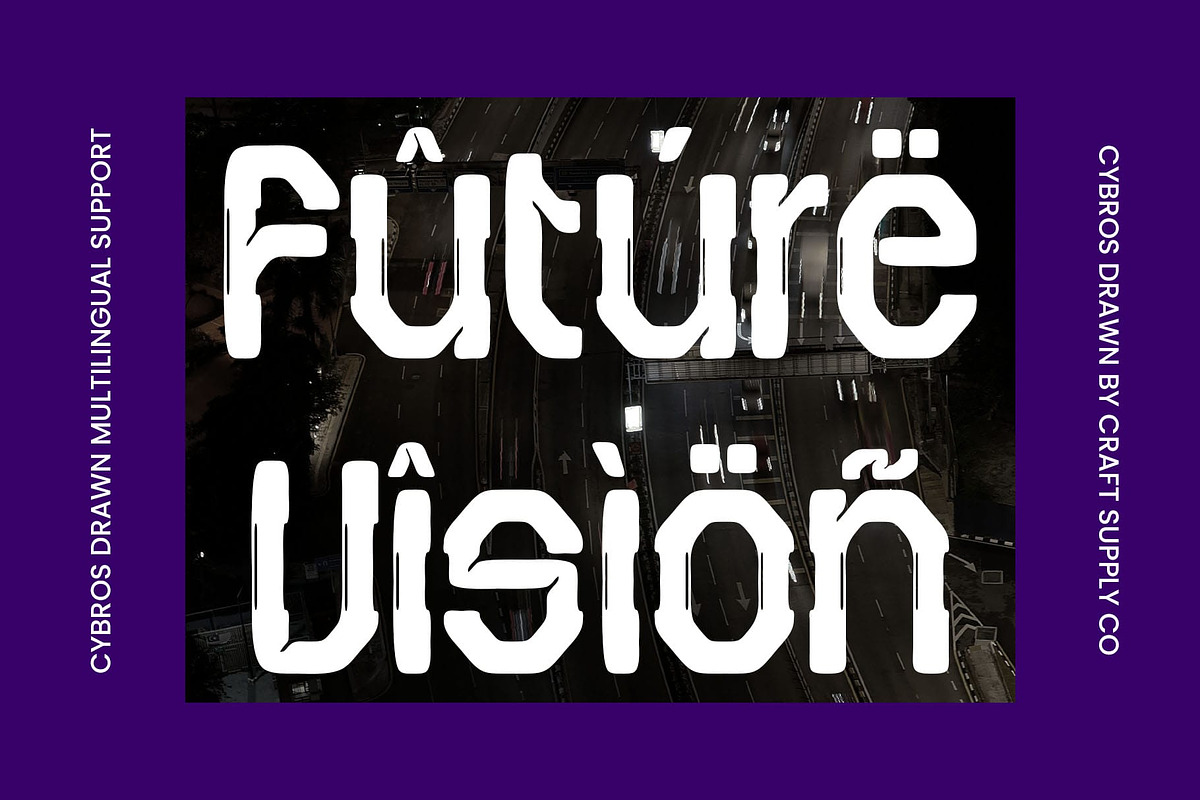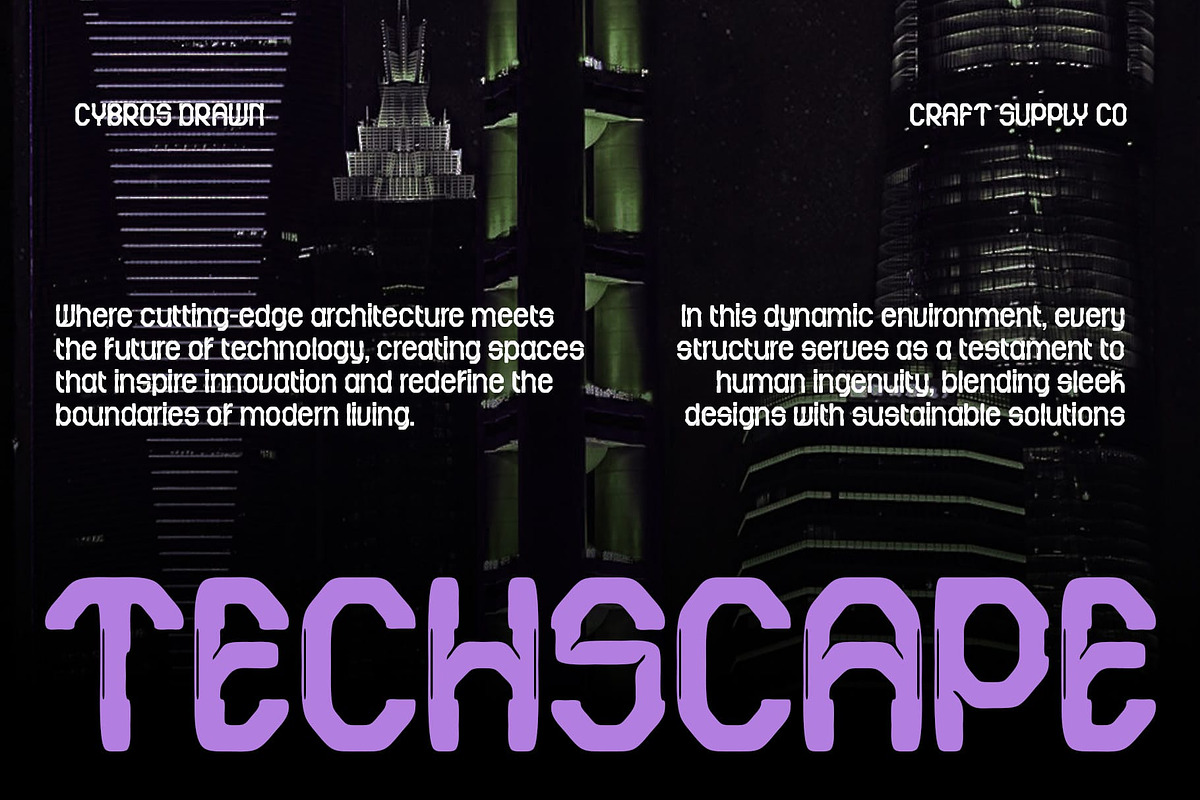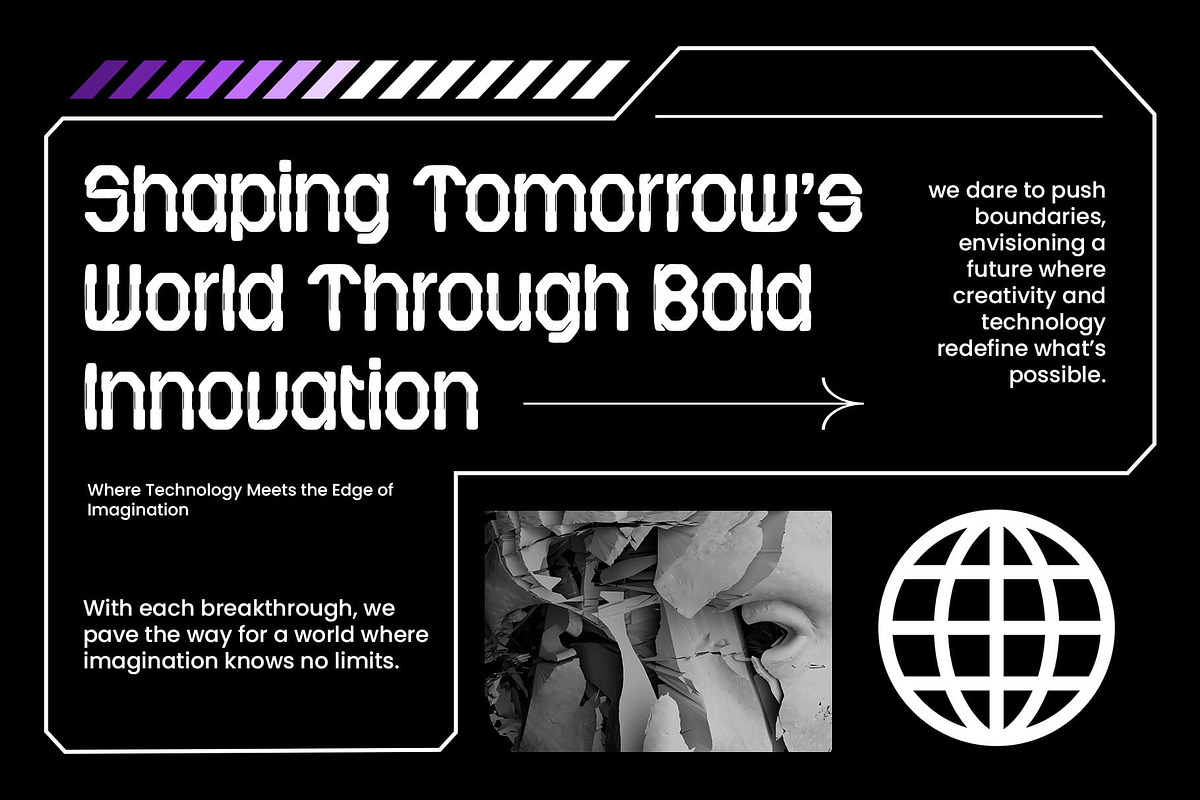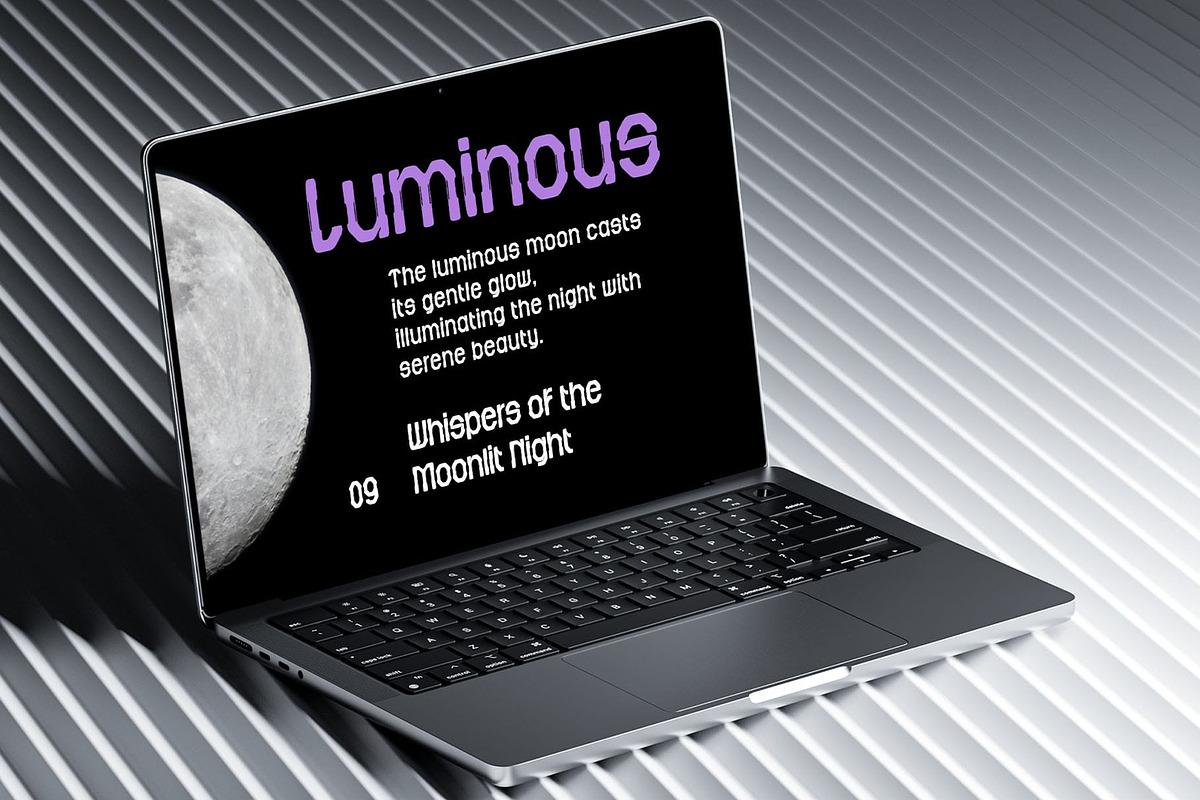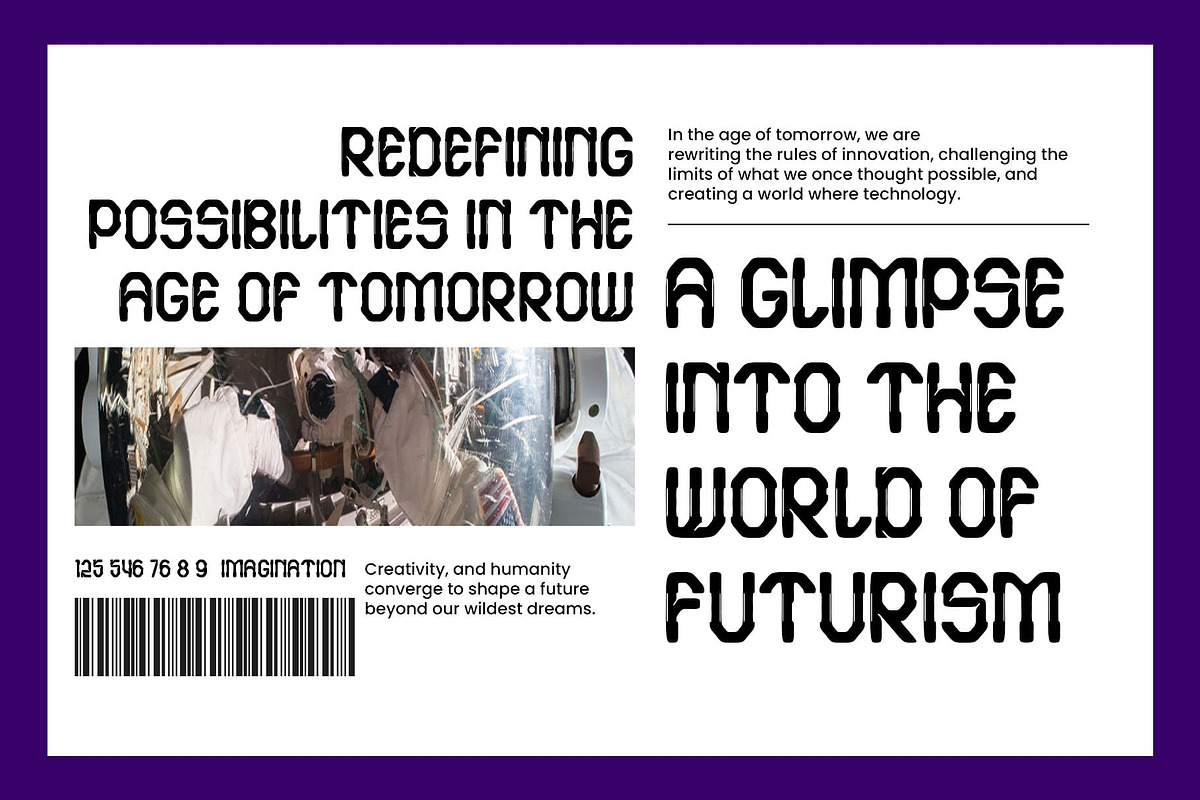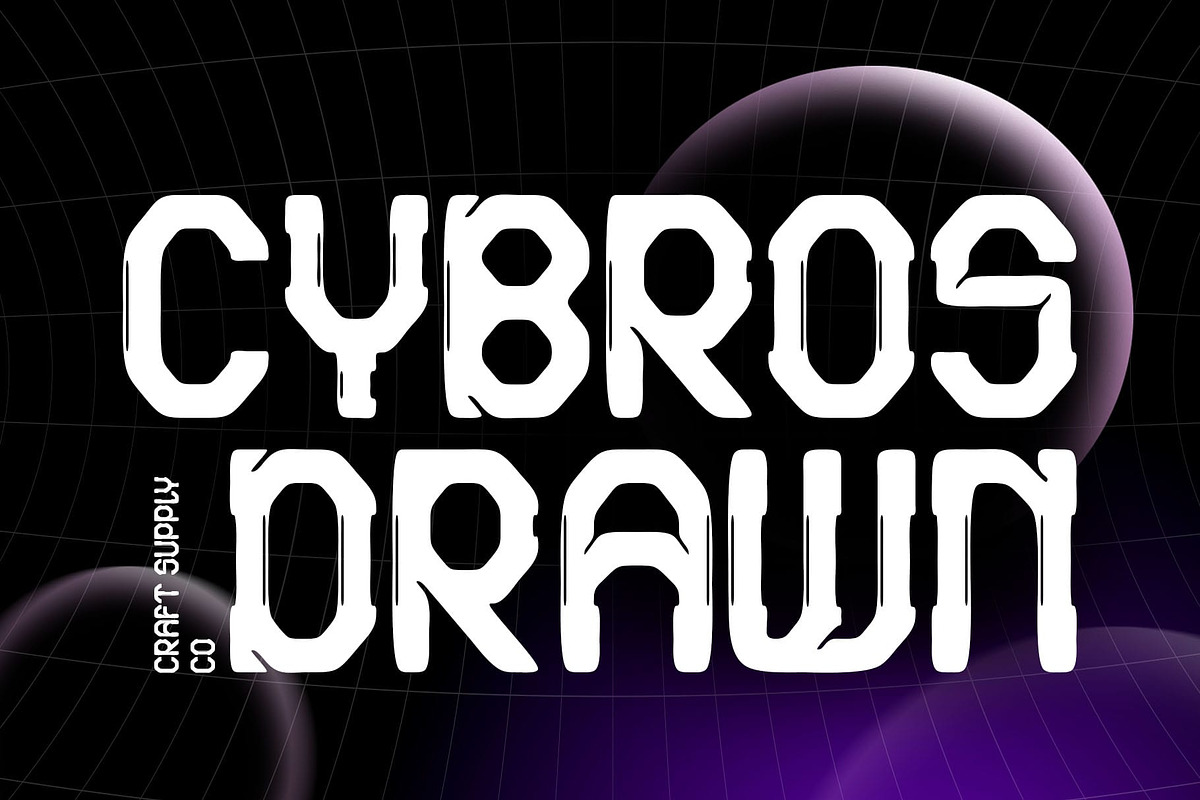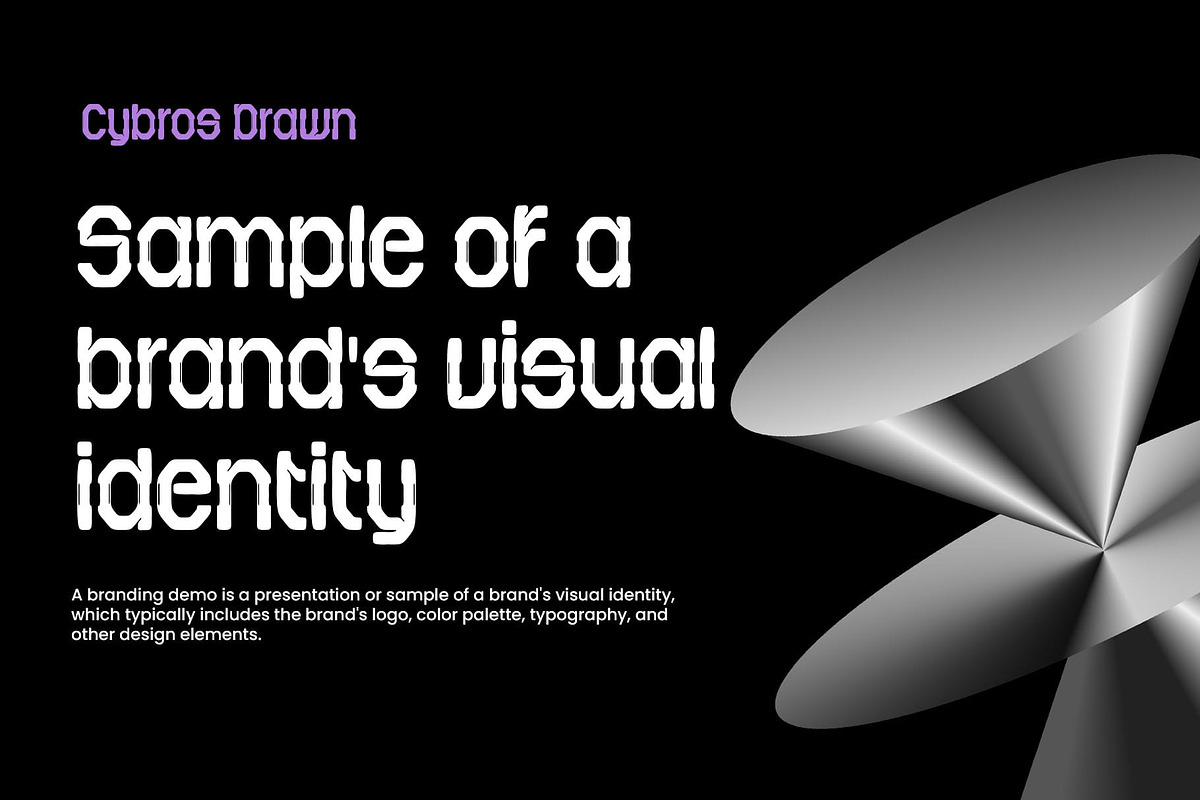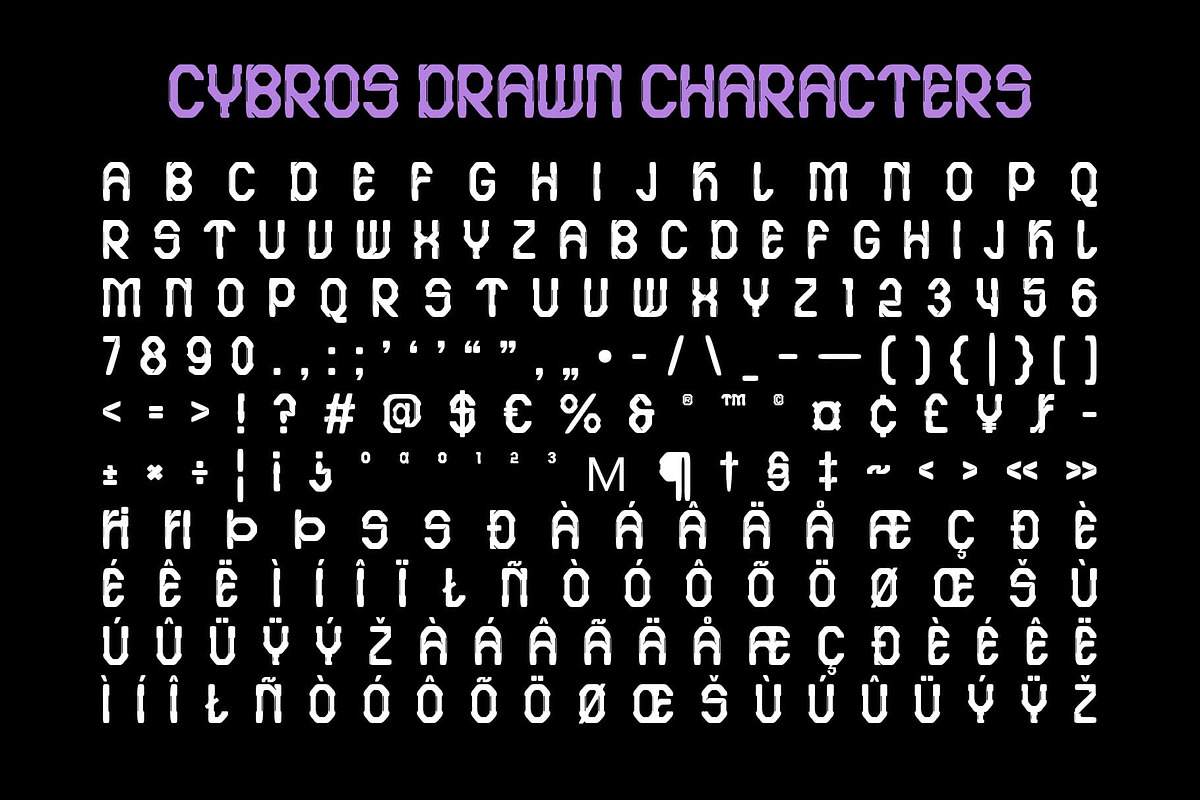
Cybros Drawn
Cybros Drawn – Futuristic Font with Handcrafted Detailing
Sleek, Modern Display Font with Futuristic Shapes Cybros Drawn is a modern display font that merges sleek, geometric, futuristic shapes with a unique hand-drawn effect. The sharp, cutting-edge letterforms evoke a high-tech, forward-thinking aesthetic, while the organic, handcrafted detailing adds an artistic touch that sets this font apart. This distinctive blend of precision and creativity creates a compelling visual language ideal for contemporary designs.
Combining Innovation with Artisanal Craftsmanship The clean, structured lines of the font deliver a professional and modern feel, while the hand-drawn elements bring a personal, human touch to the typography. This combination offers a perfect balance between digital innovation and the warmth of craftsmanship, making it a versatile choice for projects that require a bold yet inviting style.
Perfect for Tech, Branding, and Creative Projects Ideal for digital branding, tech projects, and cutting-edge creative designs, Cybros Drawn brings a forward-thinking, innovative look to any design endeavor. Its ability to blend futuristic shapes with artisanal detailing makes it perfect for brands and projects that seek to communicate a sense of both technology and human connection.
A Personal Touch for Future-Focused Design With its fusion of high-tech form and artistic, hand-drawn charm, Cybros Drawn captures the essence of modern, future aesthetics while adding a personal flair. Whether for tech startups, innovative branding, or digital interfaces.